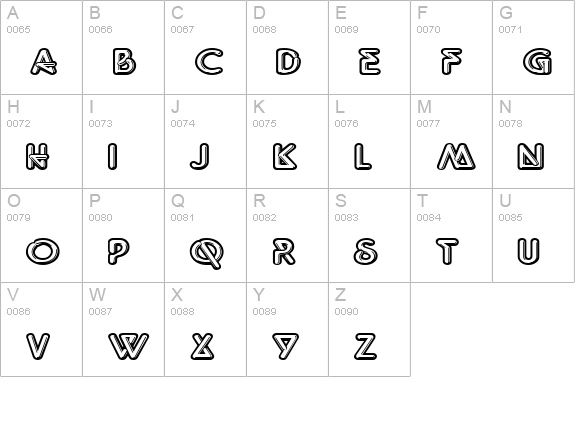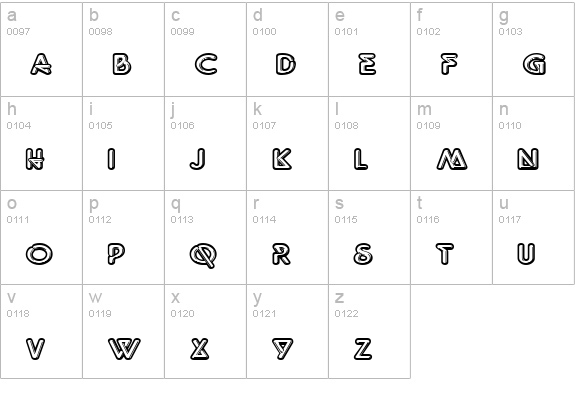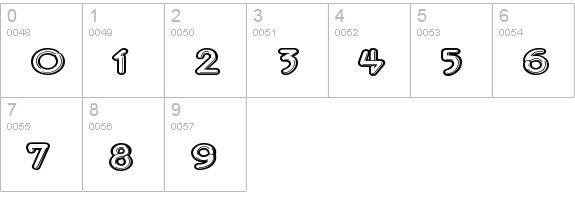
NeonzExtended Normal Font Details
NeonzExtended Normal is the standard, neutral variant in the NeonzExtended typeface family \xE2\x80\x94 well suited to general body text, paragraphs, and standard typographic work.
NeonzExtended Normal font is a modern and sleek typeface that exudes a futuristic vibe with its sharp edges and bold lines. Perfect for creating eye-catching designs that demand attention, this font is versatile and can be used for a variety of projects such as logos, posters, branding, and more. What makes NeonzExtended Normal font even more appealing is that it is available for free download at FontsMarket.com. This means you can elevate your designs with this unique font without any cost, making it a valuable addition to your font collection. Don't miss out on the opportunity to enhance your creative projects with NeonzExtended Normal font today!